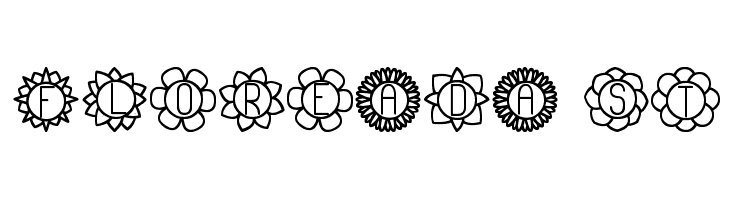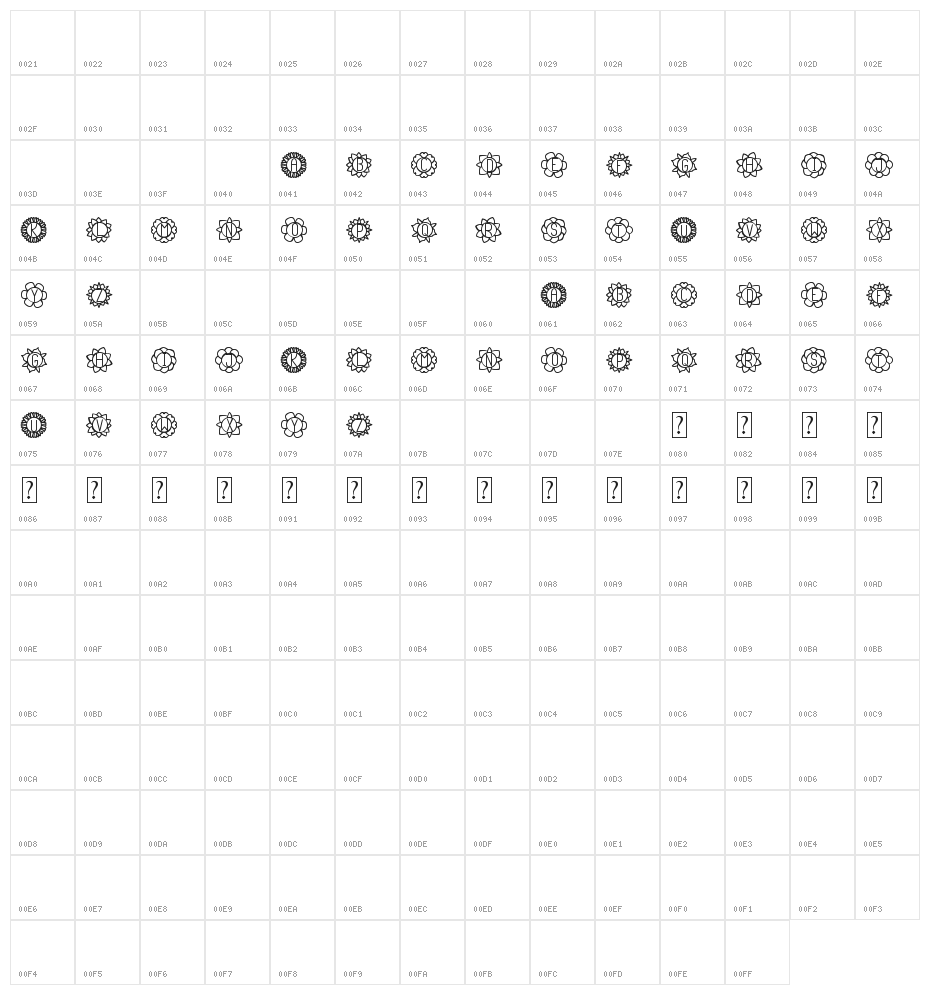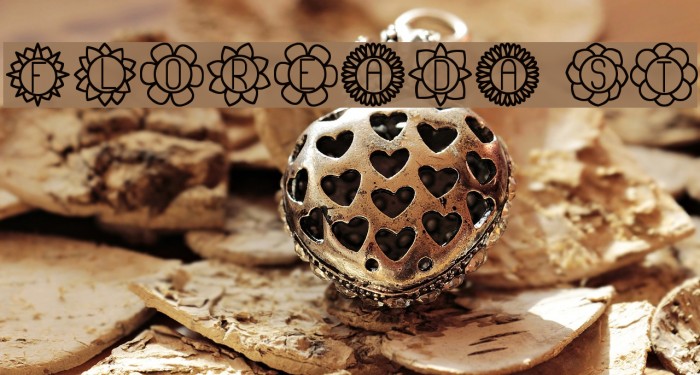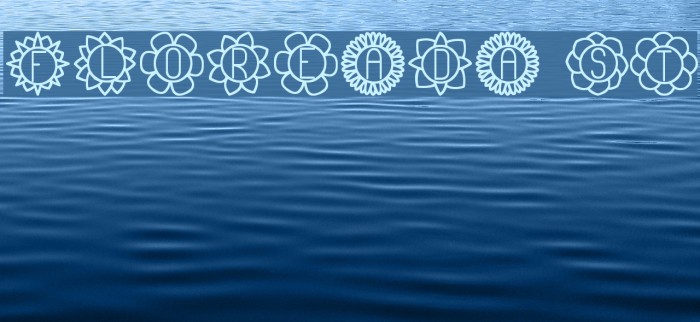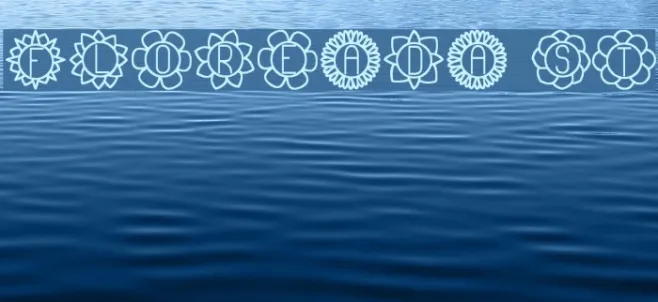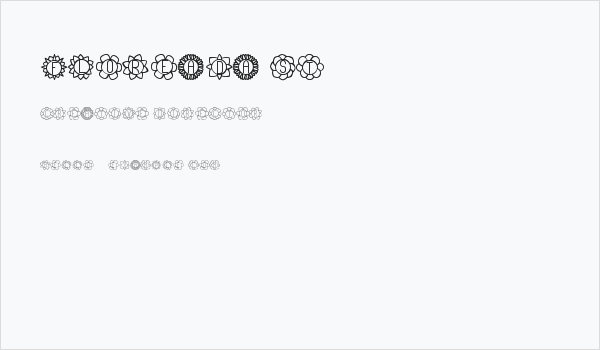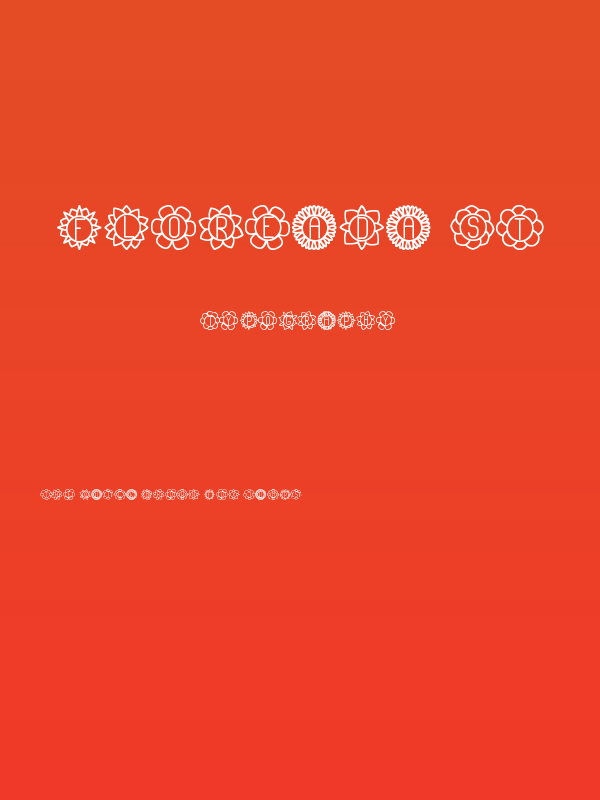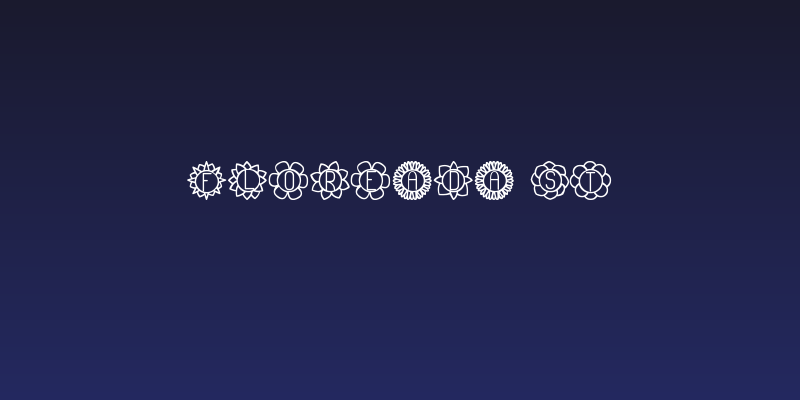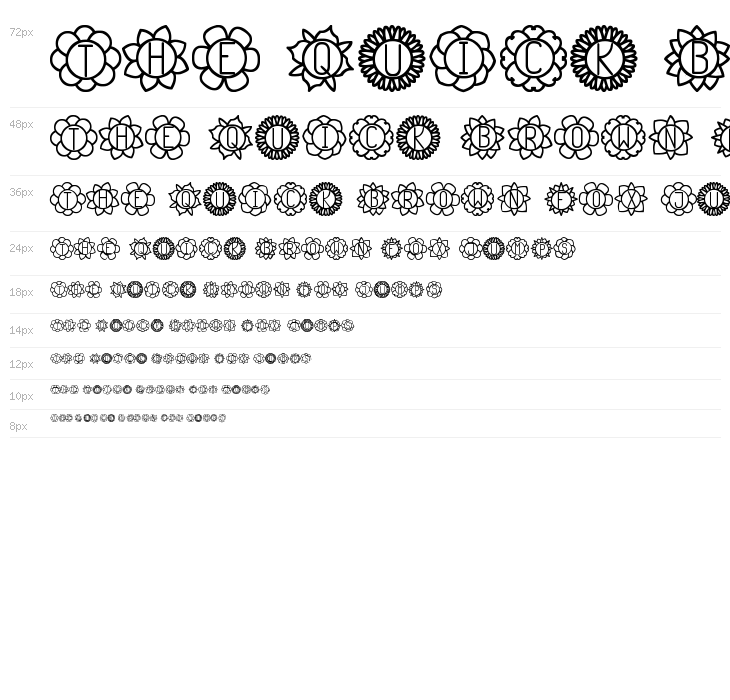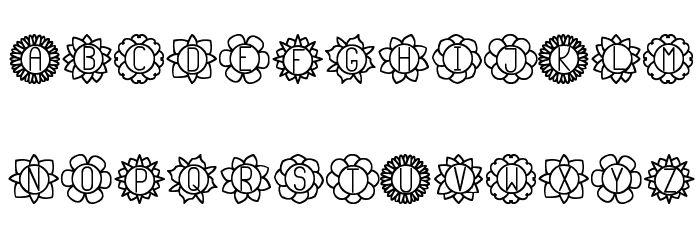
Floreada St Font
Floreada St Description
This decorative font features letters encased within intricate floral patterns, creating a unique and artistic appearance. Each character is surrounded by a symmetrical flower-like design, adding a layer of complexity and elegance. The font maintains a consistent style across all characters, with a focus on ornamental aesthetics. The floral motifs are detailed and symmetrical, providing a harmonious balance between the letterforms and their decorative elements. This font is ideal for projects that require a touch of sophistication and creativity, making it suitable for artistic and decorative purposes.
| Proposed Projects | Ideal for wedding invitations, greeting cards, artistic posters, and decorative branding. |